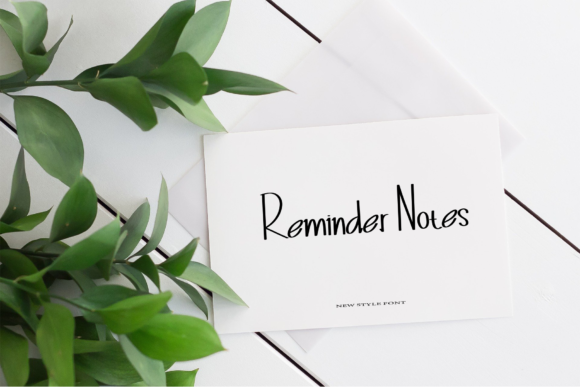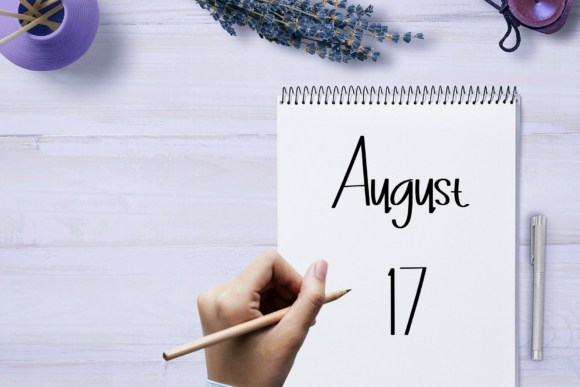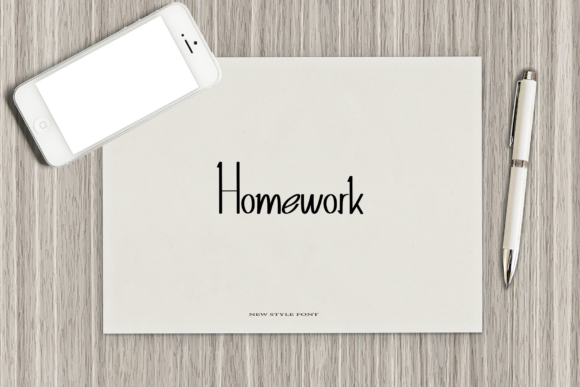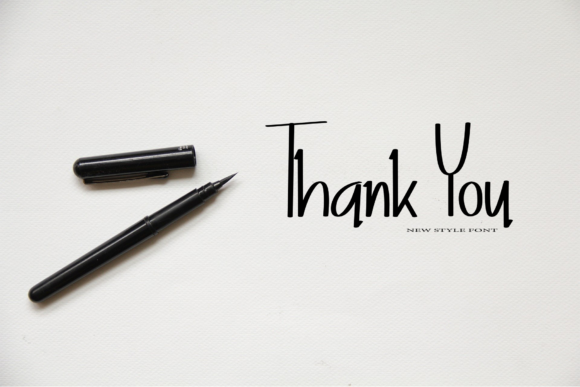
Unleashing Creativity with Baby Lion Font
Have you ever stared at a blank canvas, feeling the urge to create something truly special? You know, that moment when the spark of inspiration hits and you can’t wait to bring your vision to life? That’s exactly where Baby Lion Font comes in – a trusty sidekick to help you unleash your creativity and turn your ideas into stunning designs.
Baby Lion Font is a versatile, handwritten font that’s perfect for adding a personal touch to your projects. Its natural, unique style makes it incredibly adaptable, allowing you to experiment with a wide range of designs. Whether you’re a graphic designer, artist, or simply someone who loves to create, Baby Lion Font is a valuable asset that will help you stand out from the crowd.
Baby Lion Font Key Features
- Font Family: Baby Lion Font is a unique, hand-drawn font that features playful and cute lion characters.
- Font Size: Baby Lion Font is available in 6 font sizes, ranging from 12pt to 72pt, allowing for versatility in design applications.
- Resolution: Supports high-resolution designs up to 300 DPI (Dots Per Inch), making it suitable for print and digital media.
- Unique Characteristics: The font features a range of lion characters, including smiling, sleeping, and roaring lions, adding a touch of whimsy and personality to designs.
- Number of Glyphs: Baby Lion Font includes a total of 100+ glyphs, including uppercase and lowercase letters, numbers, and special characters.
Review of Baby Lion Font
Overall, I’m impressed with the whimsical charm of Baby Lion Font. It’s perfect for projects that need a touch of innocence and playfulness. ✨ The font’s unique style, with its rounded edges and subtle texture, gives it a distinctive look that’s sure to stand out. ✨
- Uniqueness: Baby Lion Font has a distinct style that’s not easily replicable.
- Readability: Despite its playful design, the font is surprisingly easy to read.
- Whimsy: The font’s charm is perfect for projects that need a touch of magic.
- Limited language support: Baby Lion Font may not support all languages, which could be a problem for multilingual projects.
- Legibility at small sizes: While the font is readable, it may become difficult to read at very small sizes.
- Lack of font pairing options: The font may not pair well with other fonts, which could limit its versatility.
Overall, I’d give Baby Lion Font 4 out of 5 stars. It’s a great choice for projects that need a playful, whimsical touch, but it may not be the best choice for projects that require a high level of professionalism or strict font pairing guidelines.
To get the most out of the Baby Lion font, try using it in bold or italic styles to add emphasis to your text. You can also use it in combination with other fonts to create a unique and playful design.
The Baby Lion font is perfect for use in children’s books, nursery decorations, and playful branding. It’s also great for creating a fun and whimsical atmosphere in your designs.